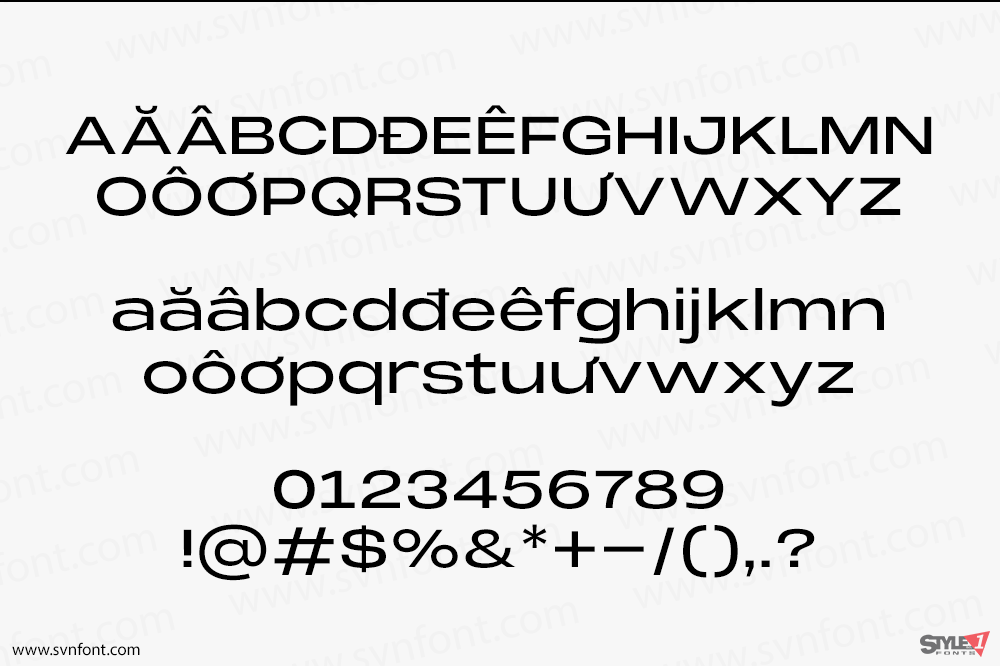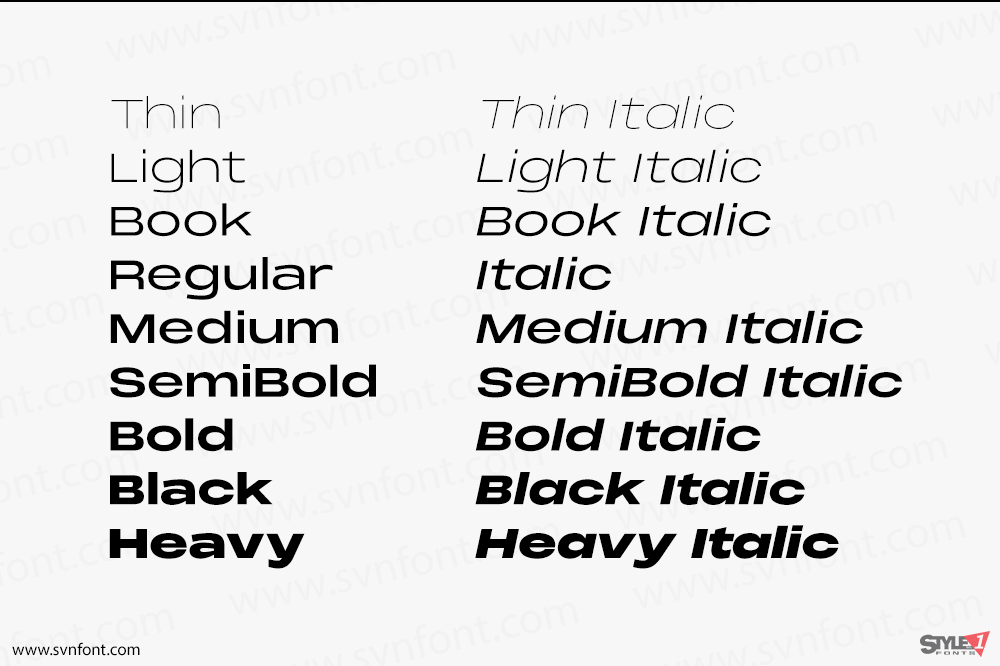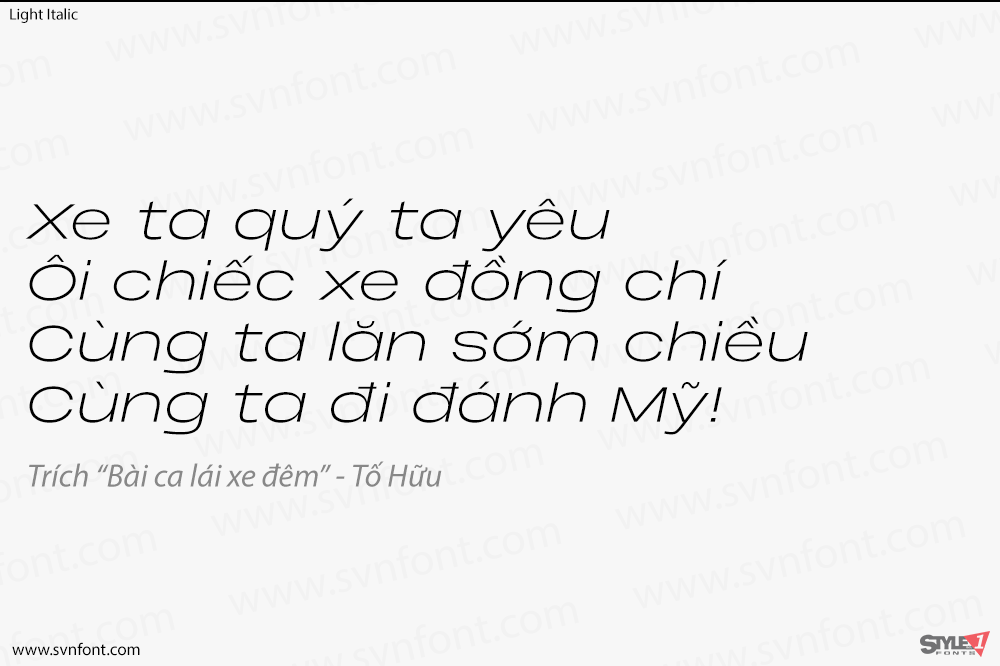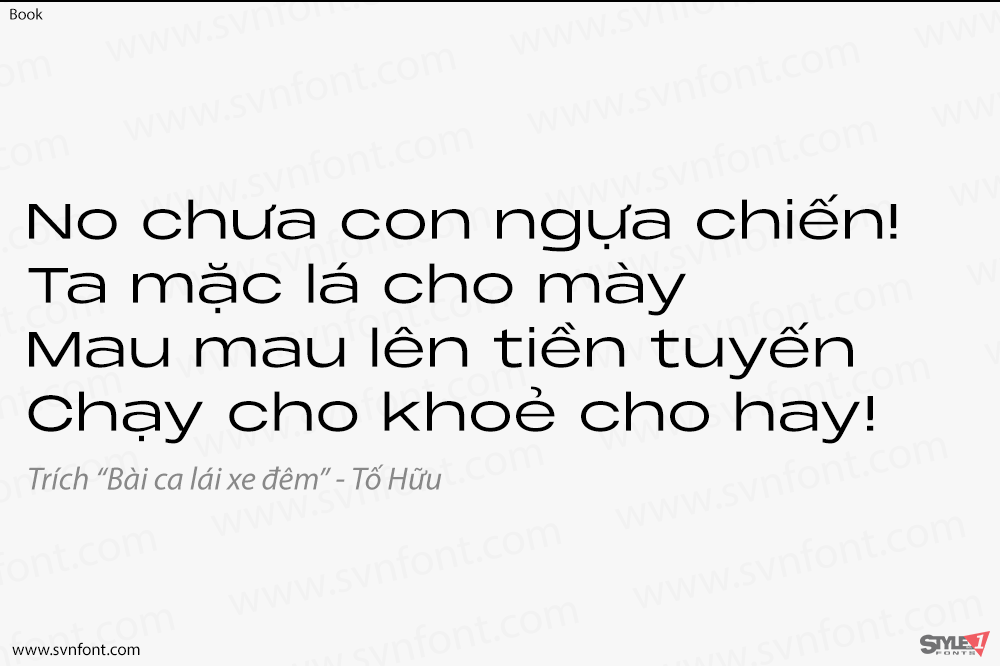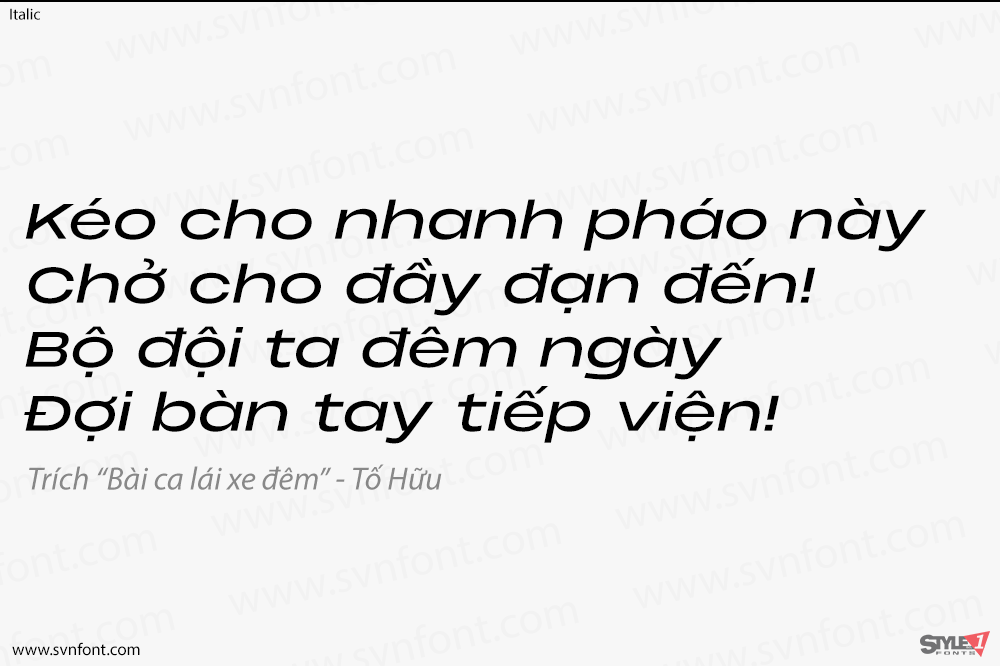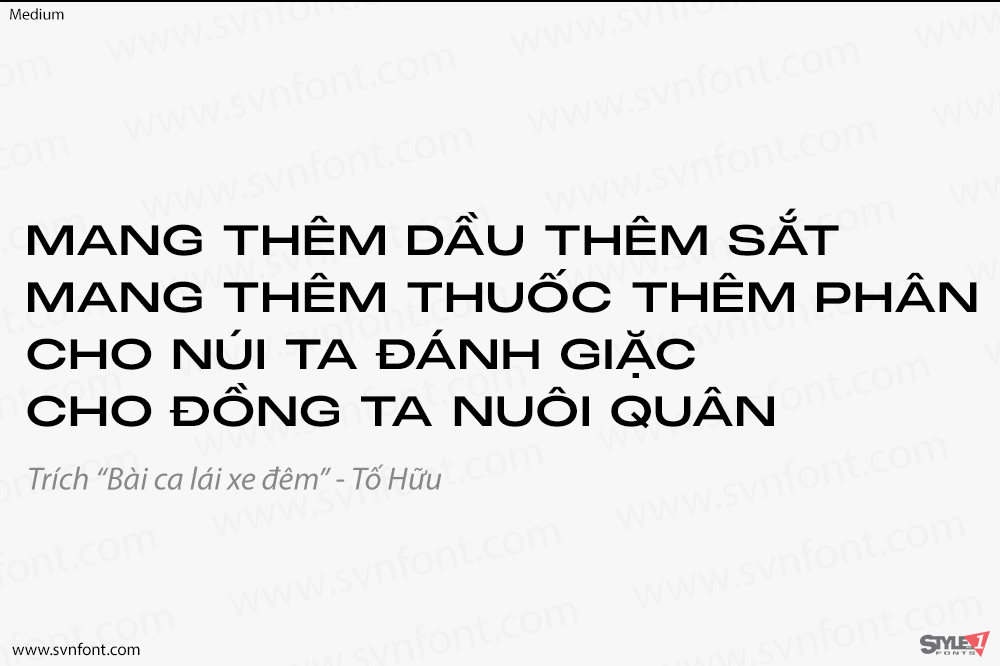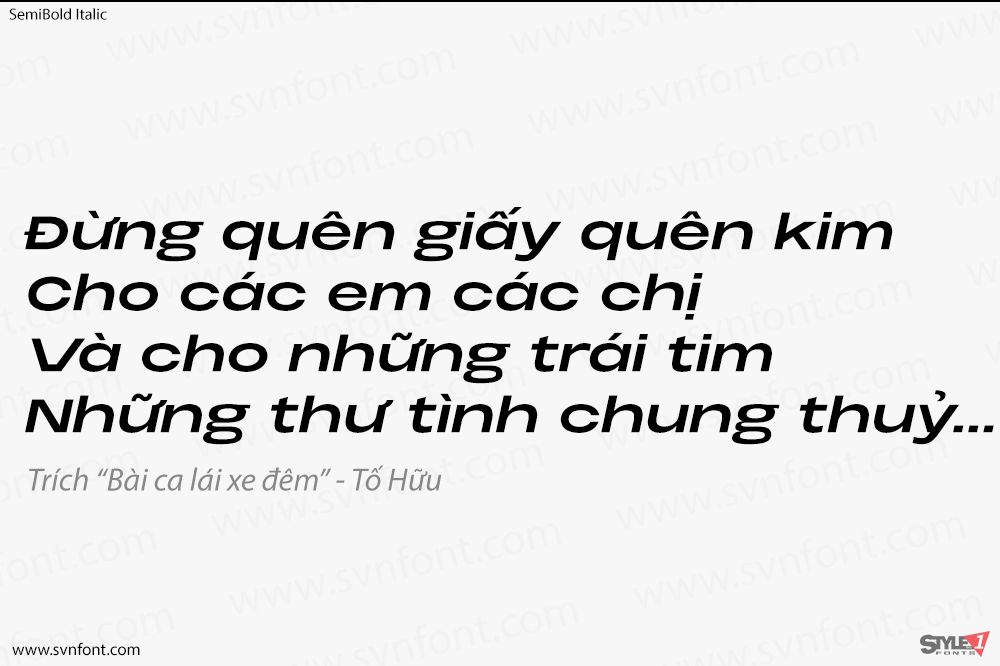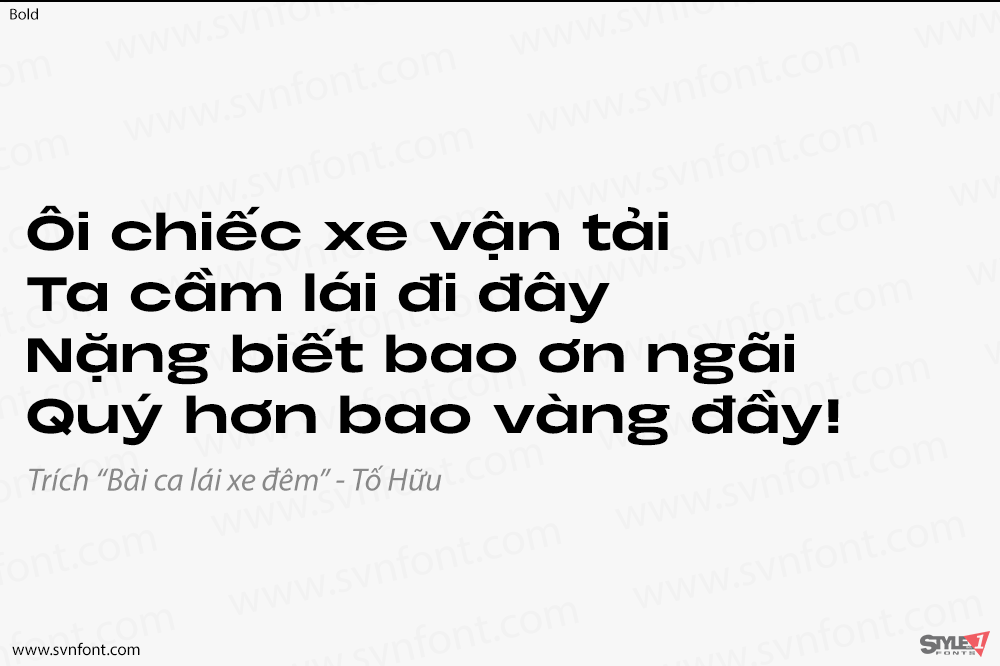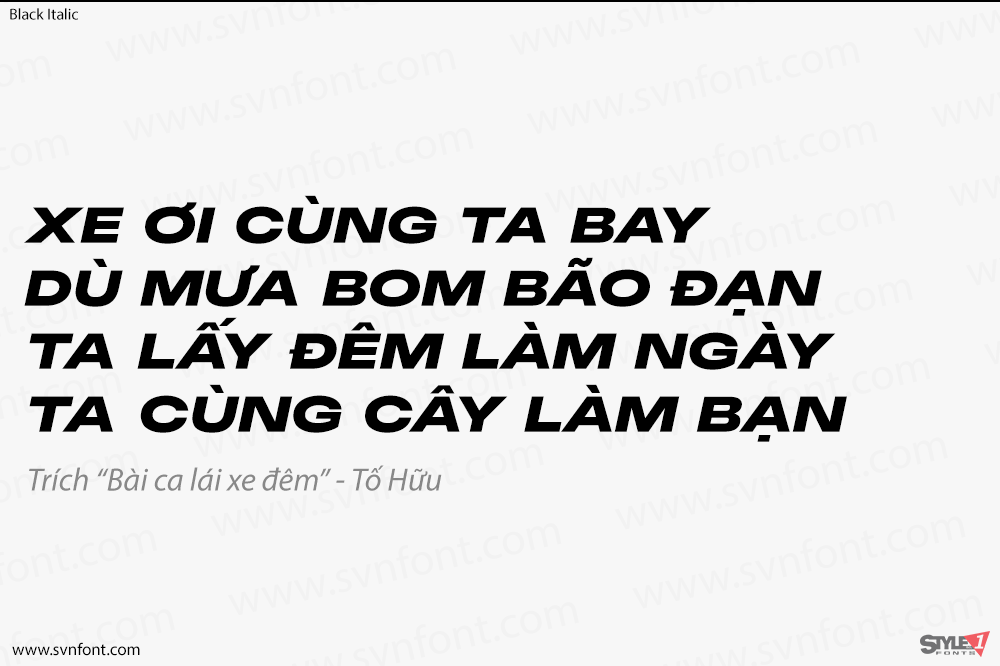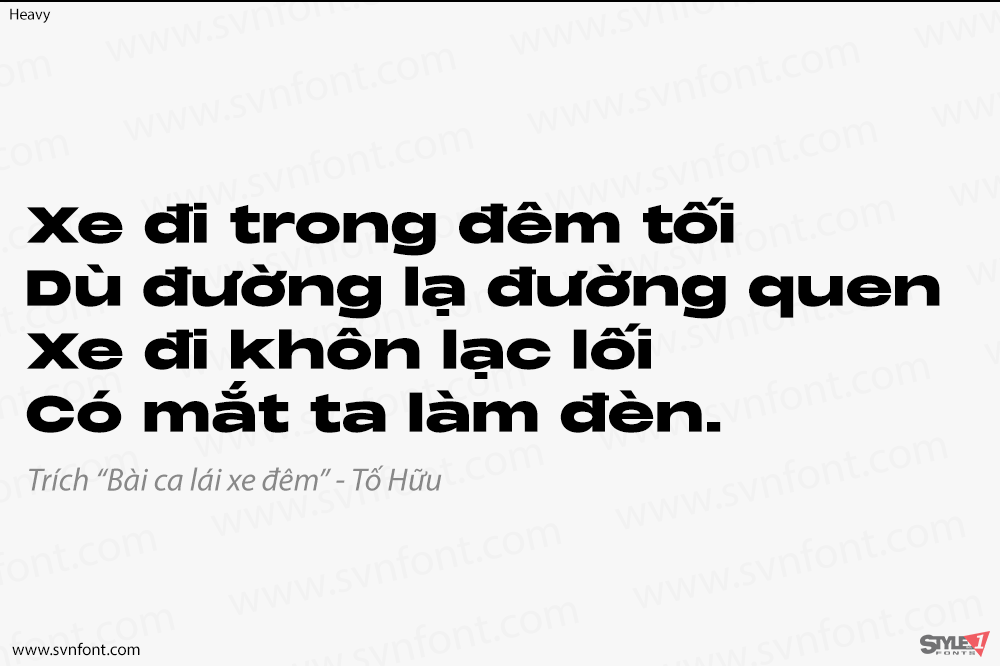
[Việt hóa] SVN-Monument Extended (18 fonts) + Variable
Monument Extended is a powerful quality extended typeface with great versatility. This extended font can be used for bold editorial statements, graphic heavy prints or just as a simple logo.
This new type will definitely make your designs stand out and unique.
Nhà thiết kế: Mathieu Desjardins
Nhà phát hành: Pangram Foundry